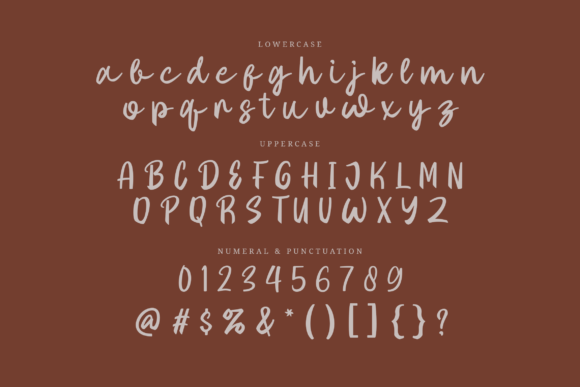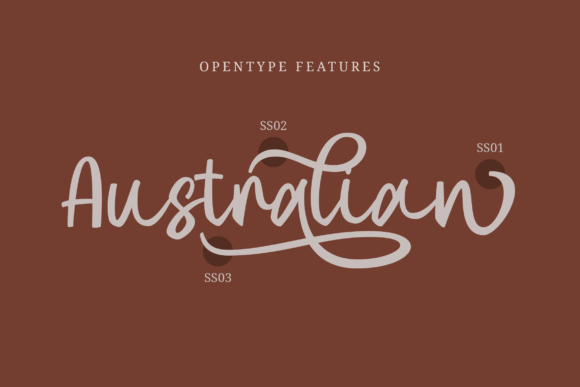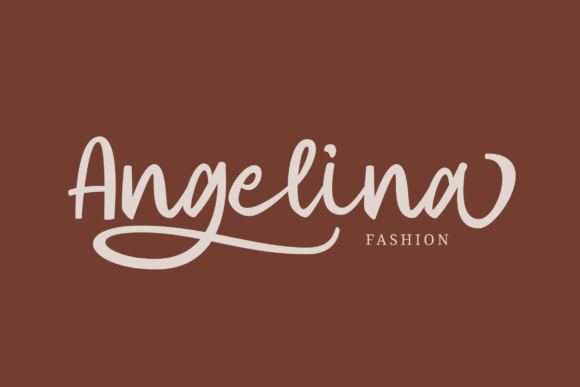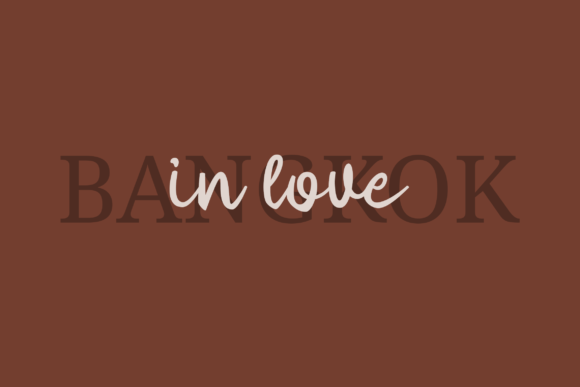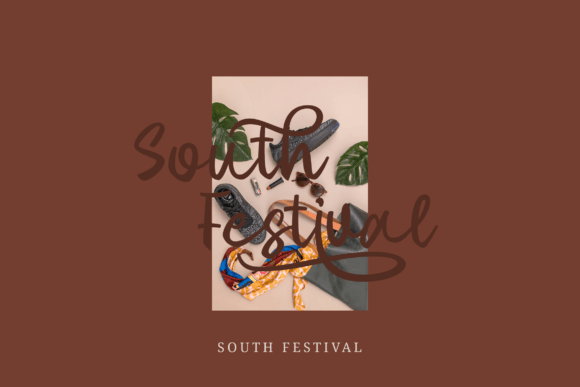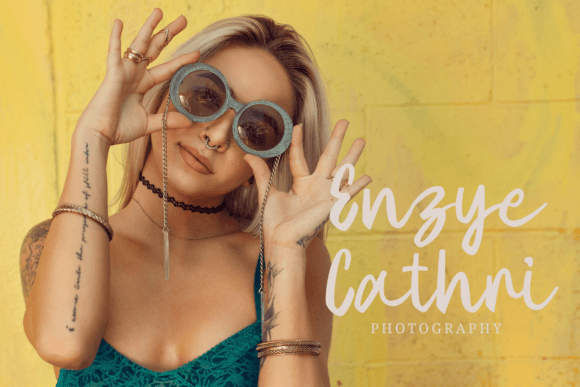
Showdriel Font
“Showdriel” is a beautiful and romantic script font that exudes elegance and charm. This font is a perfect choice for various design projects where you want to convey a sense of love and beauty. It looks stunning on wedding invitations, thank you cards, quotes, greeting cards, logos, business cards, and any other design that requires a lovely handwritten touch. Additionally, “Showdriel” is PUA encoded, allowing easy access to all its glyphs and swashes, enhancing its versatility and usability.
The font’s romantic and beautiful design is characterized by its graceful and flowing characters. It’s ideal for a wide range of design applications, particularly those focused on weddings, romance, and special occasions. “Showdriel” can add a touch of sophistication and heartfelt emotion to your designs.
In the world of design, fonts play a significant role in setting the mood and conveying a visual identity. “Showdriel” excels in these aspects by offering a script style that is both romantic and visually captivating. Its aesthetics infuse your designs with a sense of love and elegance, making them engaging and memorable.
In summary, “Showdriel” is more than just a font; it’s a beautiful and romantic design tool that can add a touch of love and elegance to your creative projects. Its PUA encoding ensures easy access to a wide range of glyphs and swashes, making it a versatile choice for designers seeking to create work that is both romantic and visually stunning. Whether you’re an experienced designer or just starting your creative journey, “Showdriel” is the font that can help you craft designs that are truly beautiful and emotionally compelling.